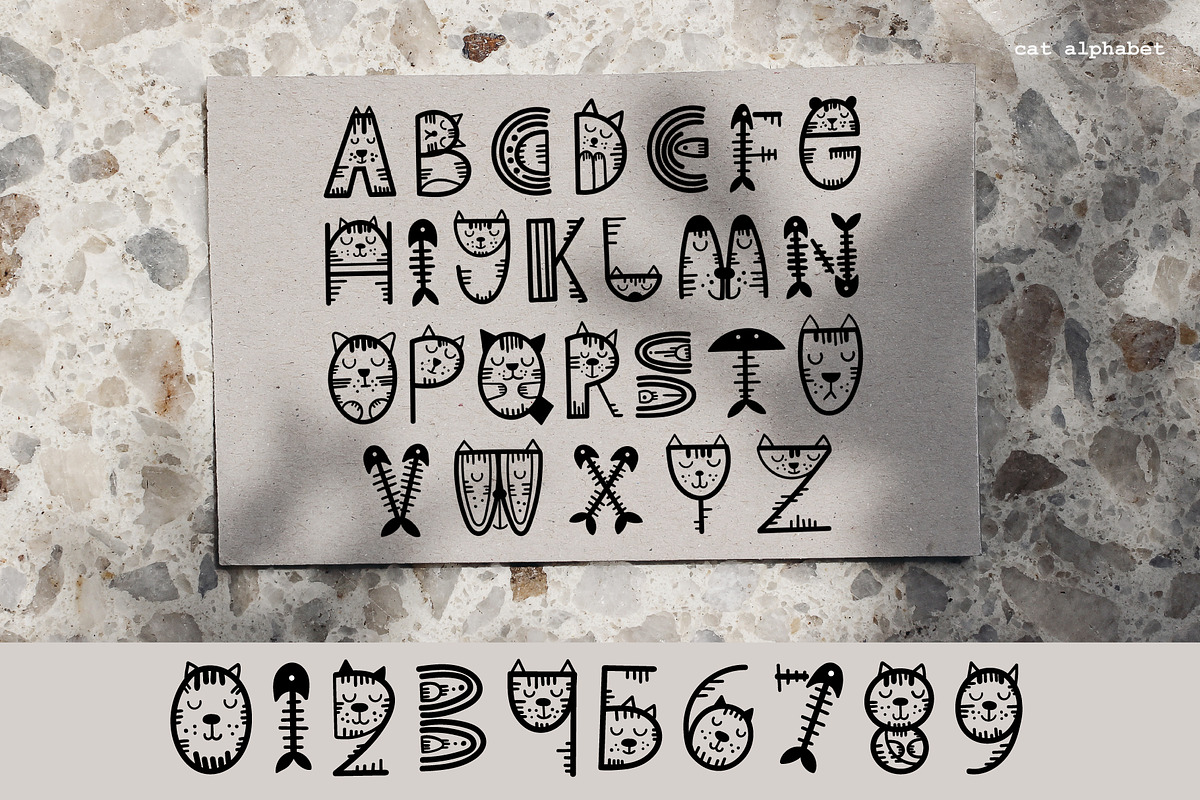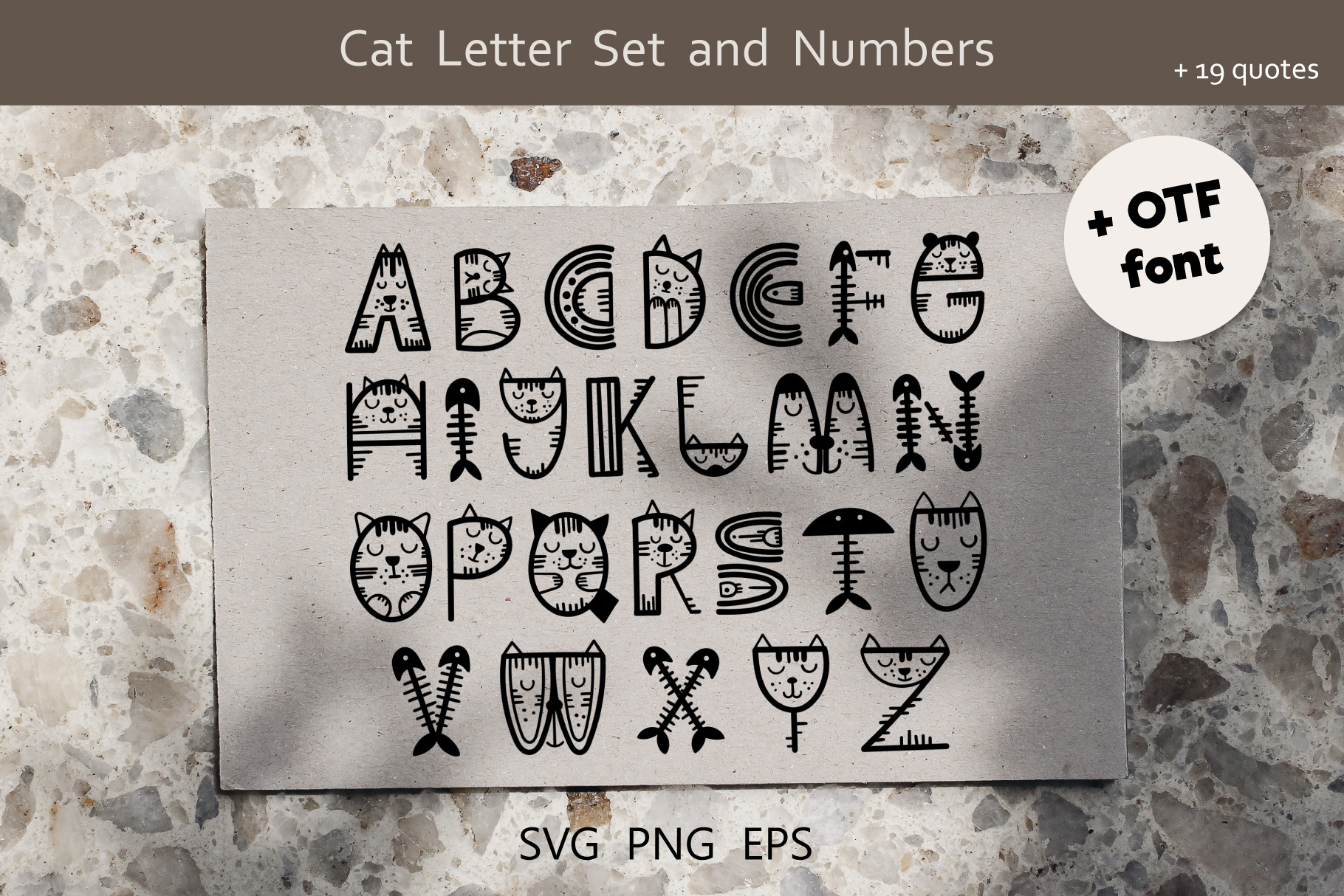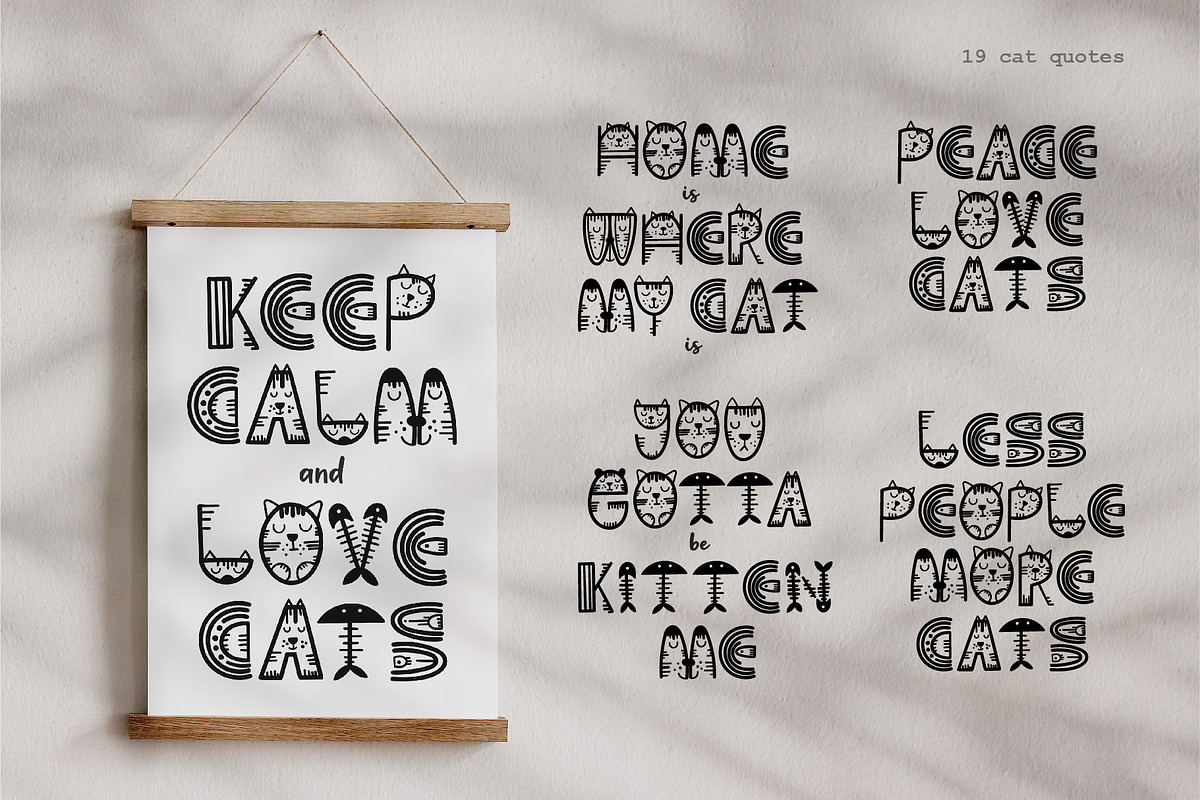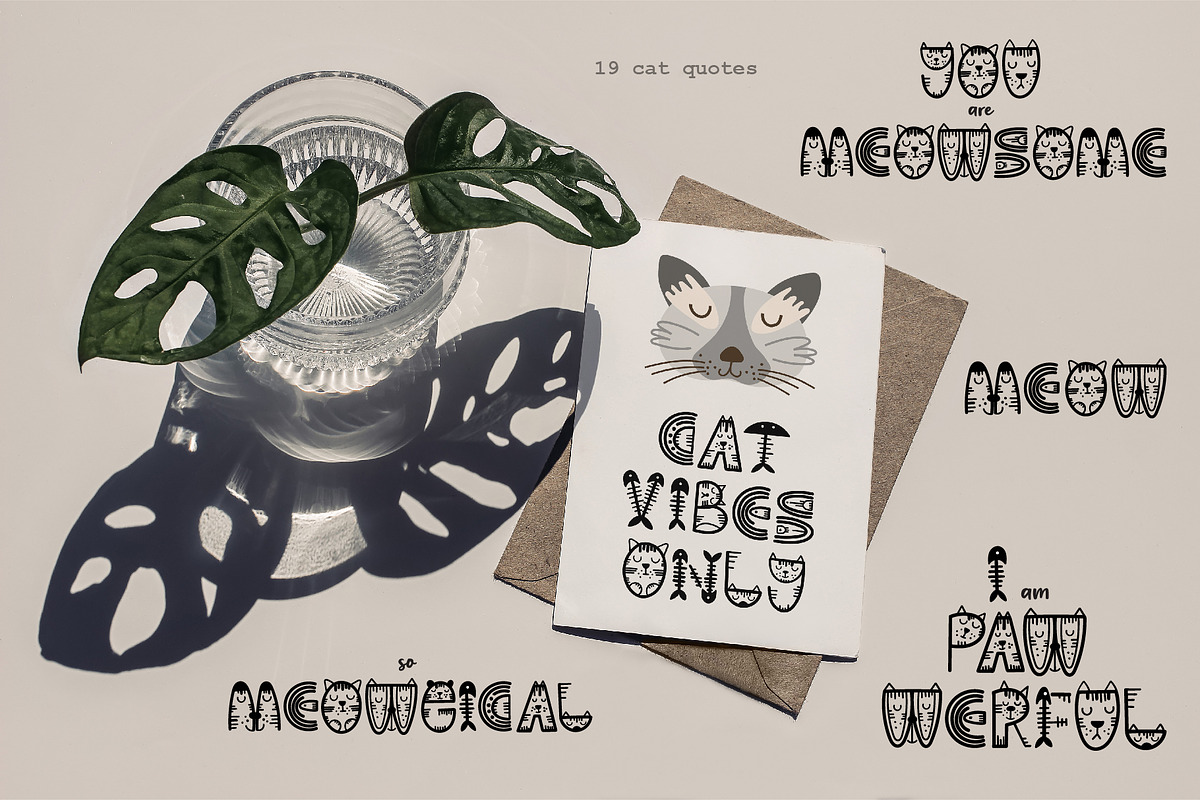
Crazy Cat Font. + Cat quotes
Meet Crazy Cats! This is a decorative letter set and numbers (and an OTF font!), perfect for posters, T-shirt prints and cards and overlay quotes! 19 premade cat sayings included!